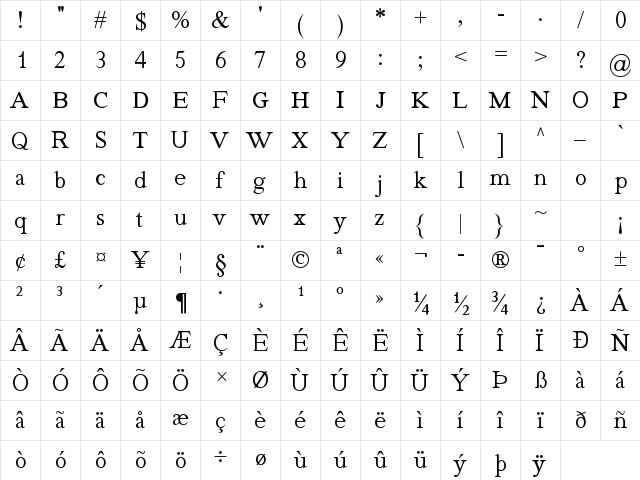
Quivira Regular Font Preview
Quivira Regular
Design Context for Quivira Typeface
Quivira is a composed and adaptable typeface that performs quietly and consistently across a wide range of design contexts.
Pro Tip: Use Quivira in both headline and body roles to test its range before committing to a single application.